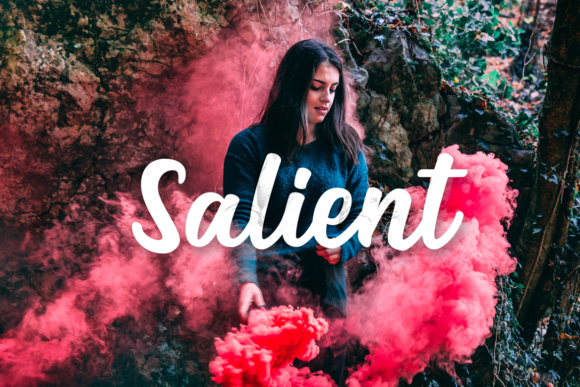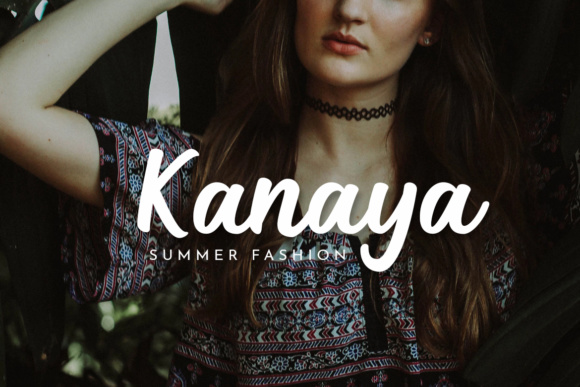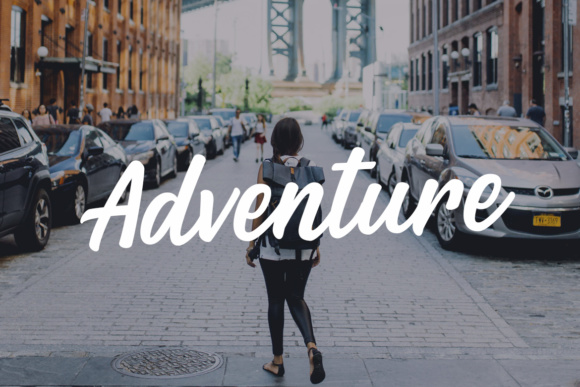
We Provide You one of the best Stylish Hand Written Scripts, Havania.
With it’s striking appearance Havania can be used for logos, header, titles, prints & other creative process possibilities Create a Extraordinary Typography / lettering results by using Havania.
Havania Script Font offers exceptional quality and versatility, making it a valuable addition to your design toolkit. Whether you’re creating for personal projects or commercial use, Havania Script Font delivers professional results.